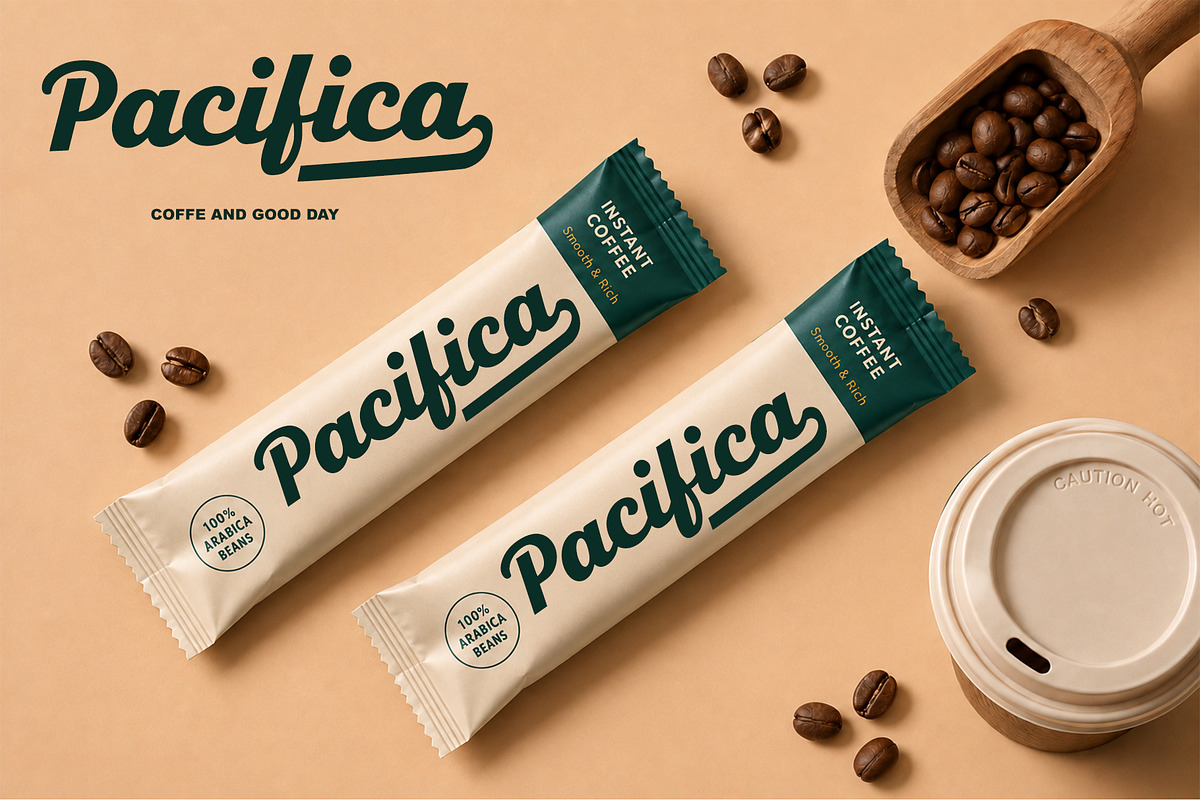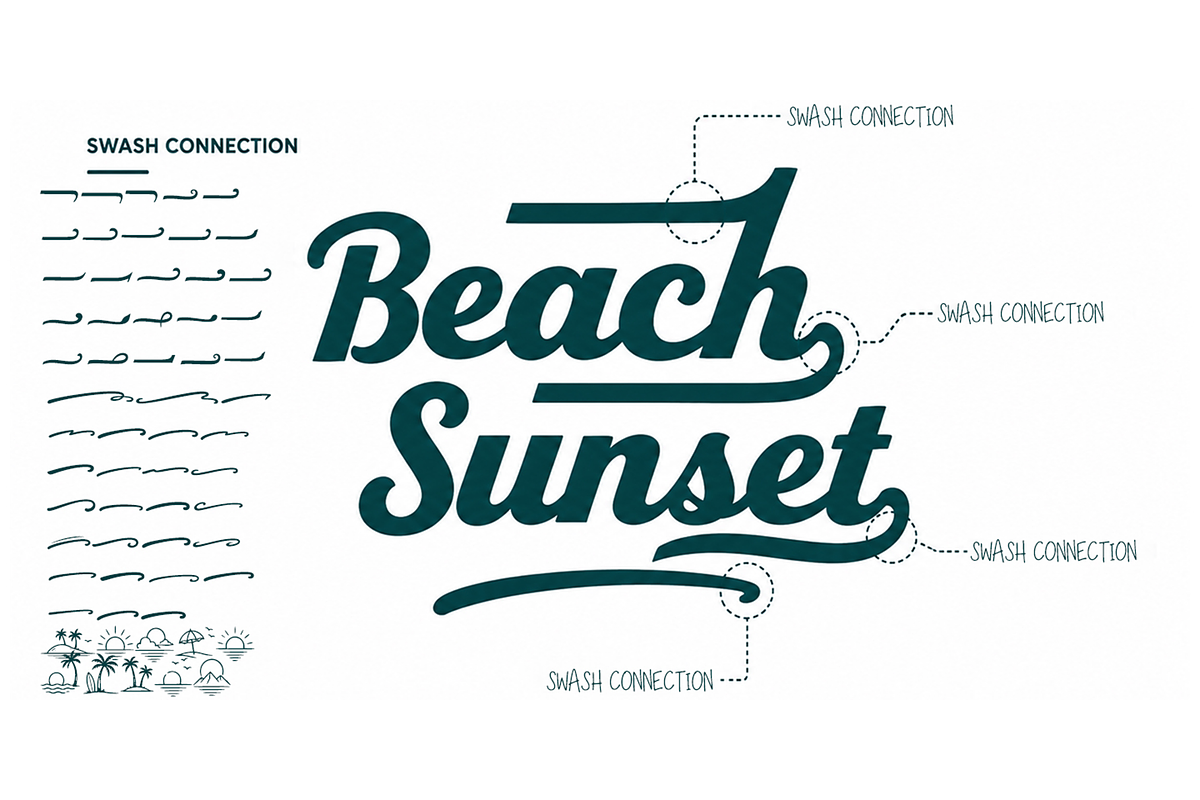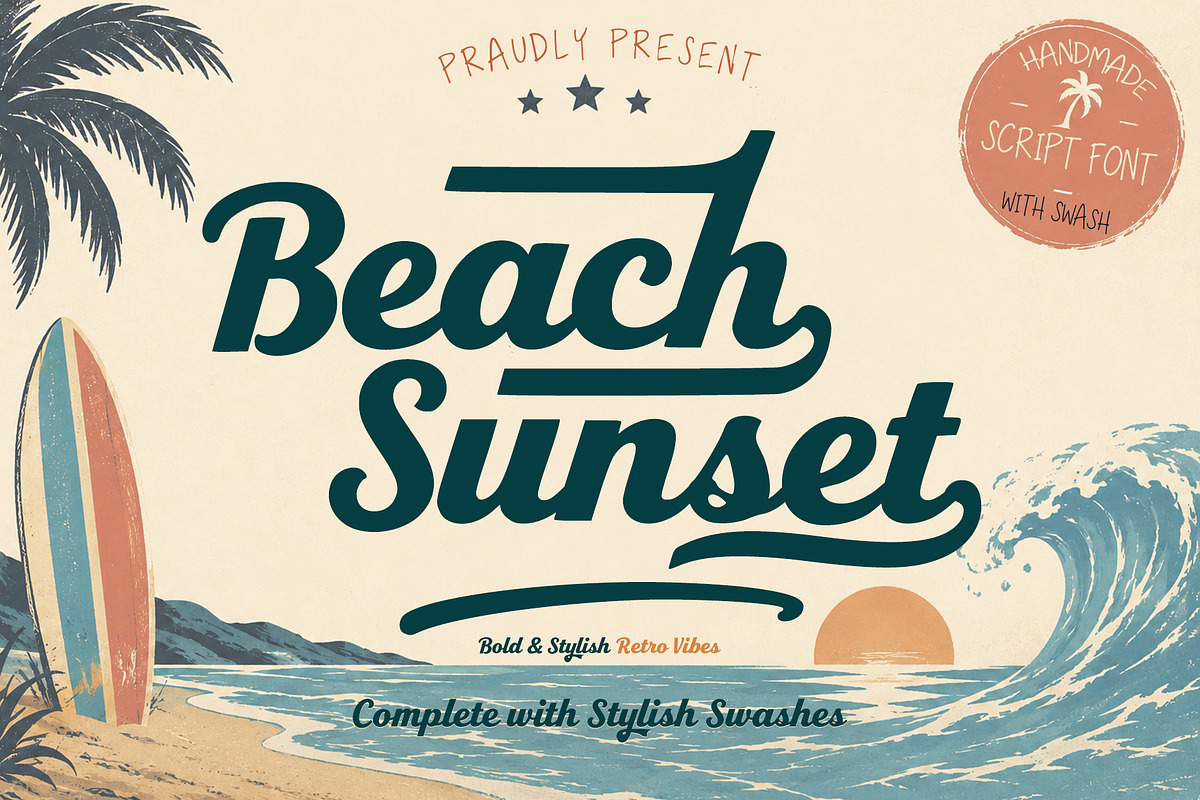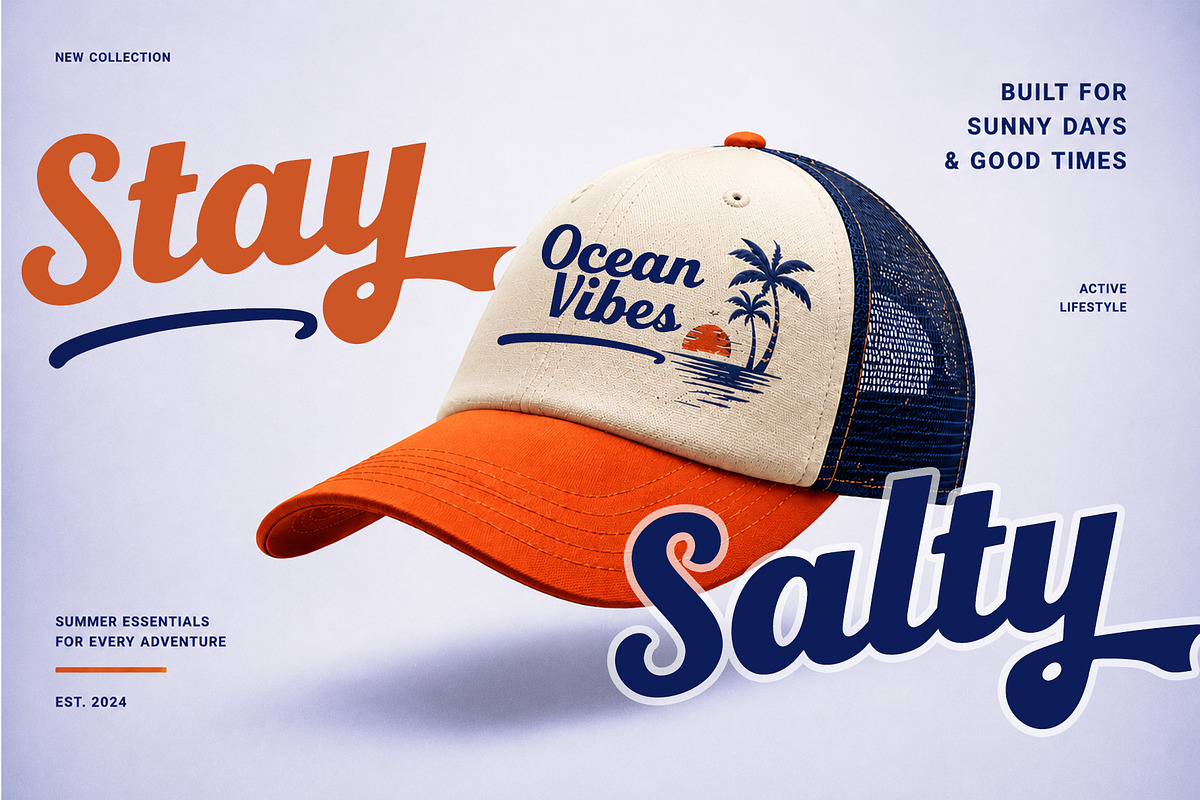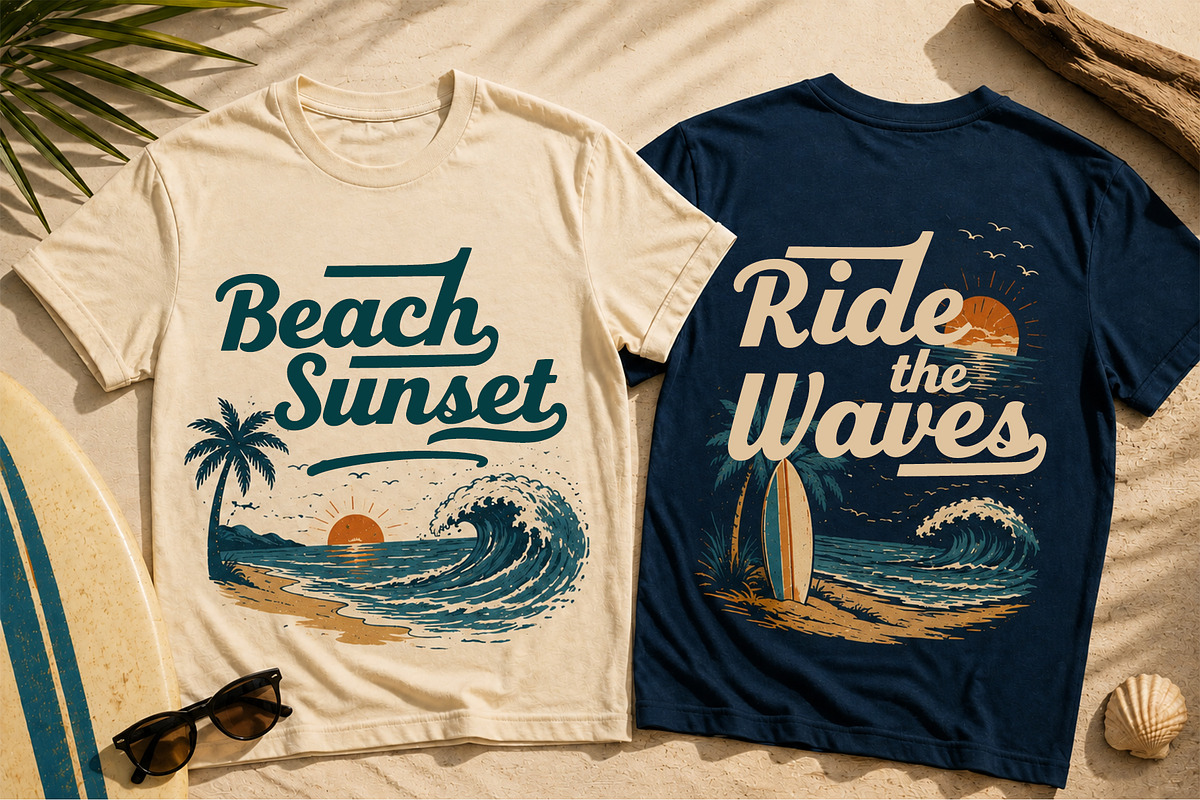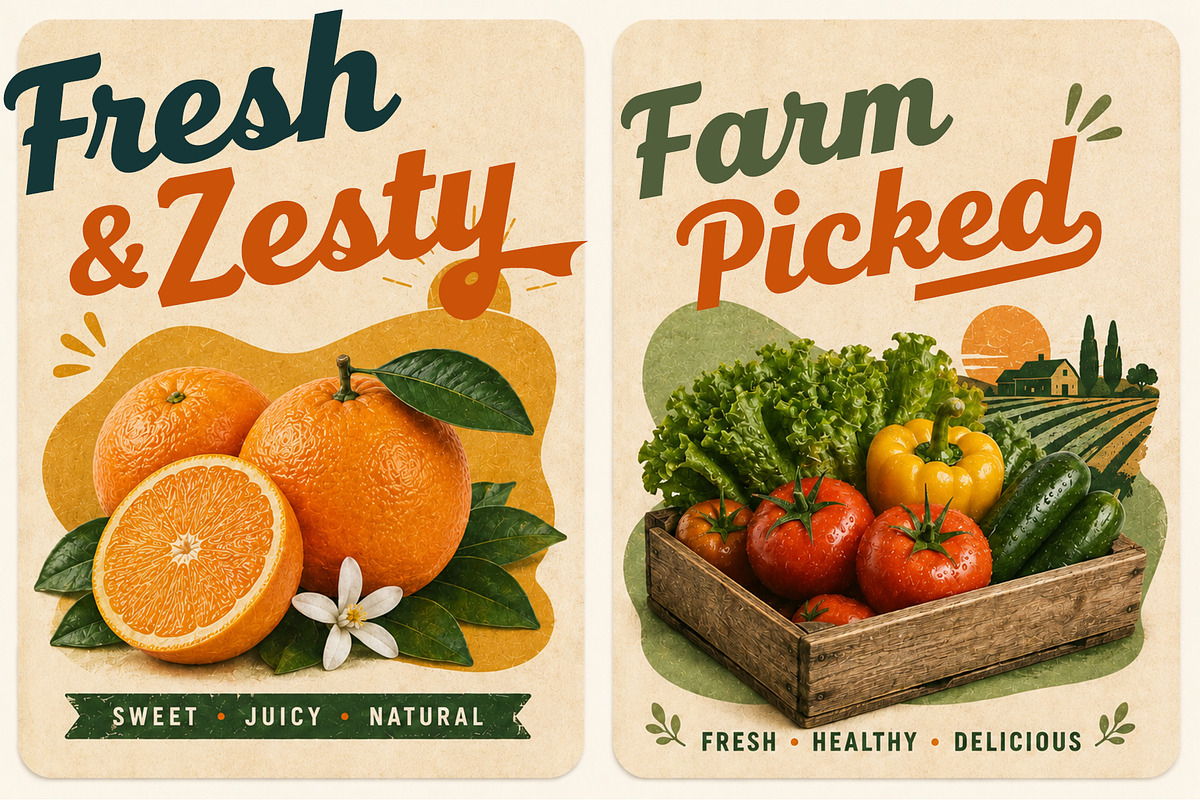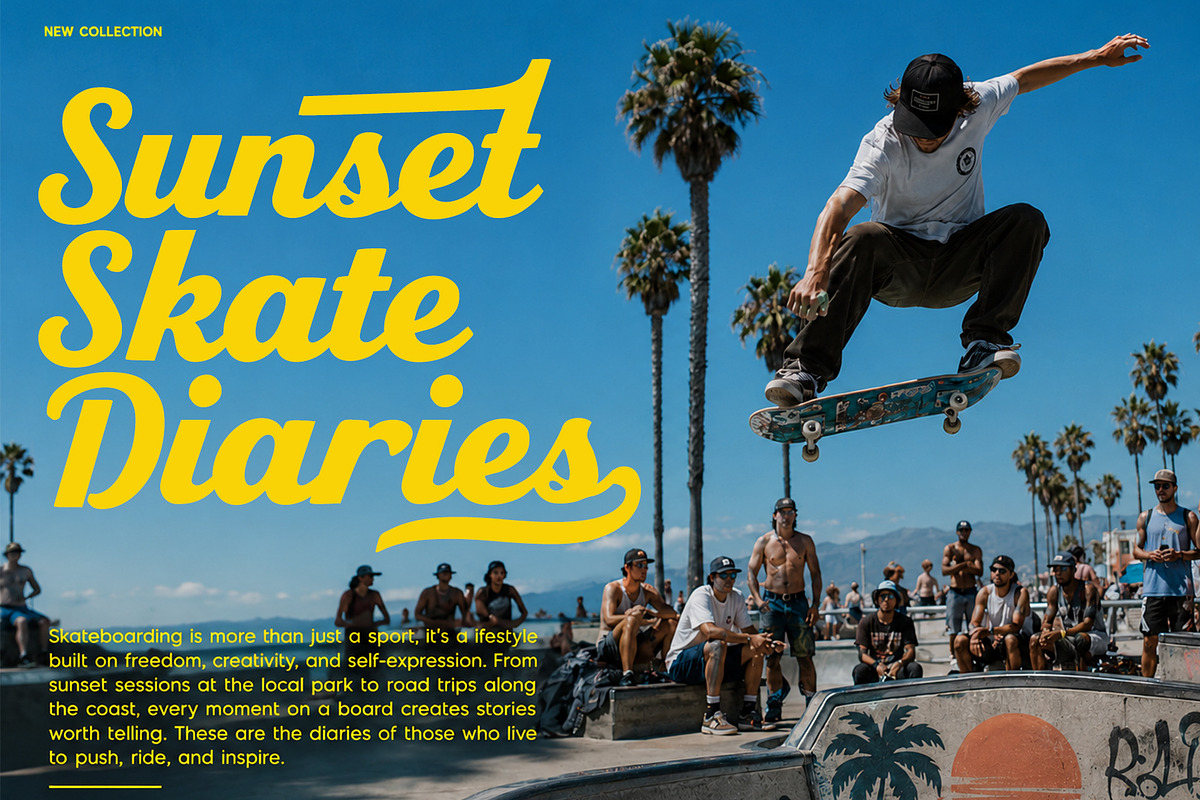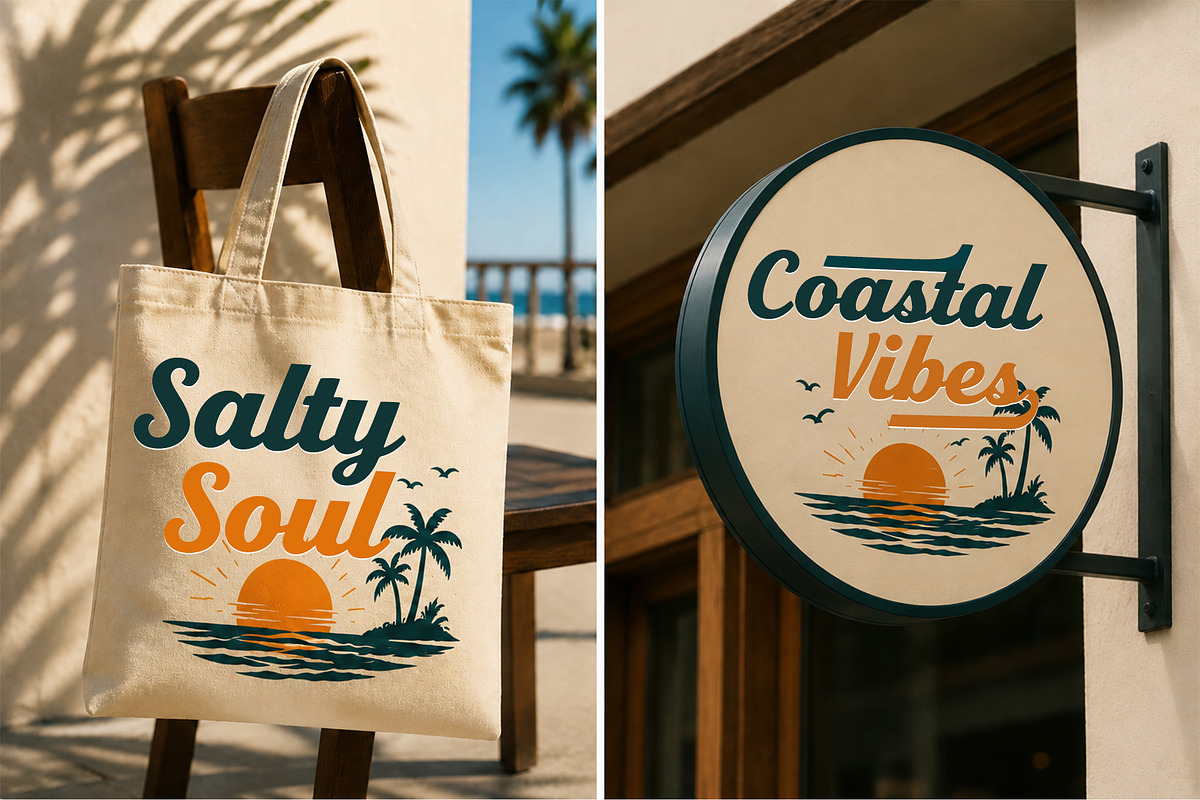
Beach Sunset is a bold and stylish
Beach Sunset is a bold and stylish retro script font inspired by laid-back coastal vibes, vintage surf culture, and warm summer sunsets. Its flowing letterforms feature smooth curves, strong strokes, and expressive details that create a confident yet relaxed look.
The package includes extra swash elements designed to add decorative flourishes and stylish finishing touches. The swashes are provided separately, allowing them to be placed freely with the lettering for greater design flexibility.
Perfect for t-shirt designs, beach branding, logos, posters, packaging, signage, stickers, social media graphics, merchandise, and retro summer artwork.